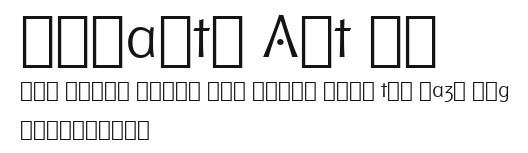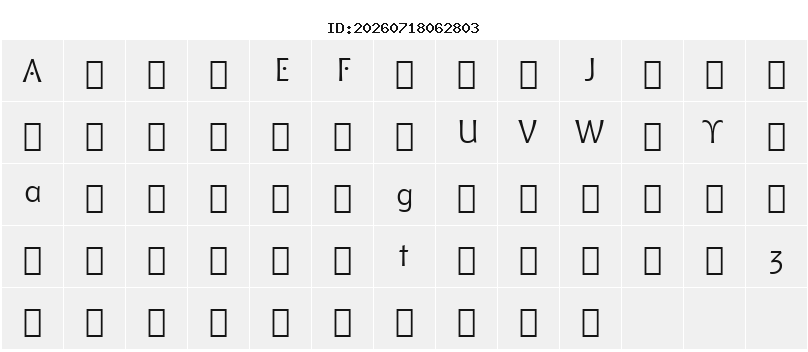
• Font Name: Chianti Alt BT
• Font Style: Alternate
• Font ID: Bitstream Chianti Alternate, Humanist 797
• Full Font Name: Chianti Alt BT Alternate
• PostScript Name: ChiantiBT-Alternate
About Chianti Alt BT.ttf
Chianti Alt BT.ttf is a modern, elegant sans-serif font designed for ultimate readability and visual harmony. Perfect for branding, headlines, web design, and print materials.